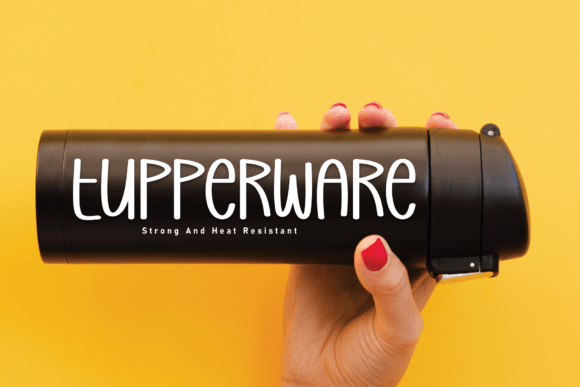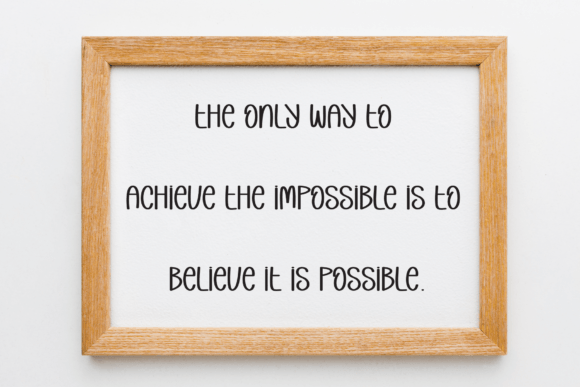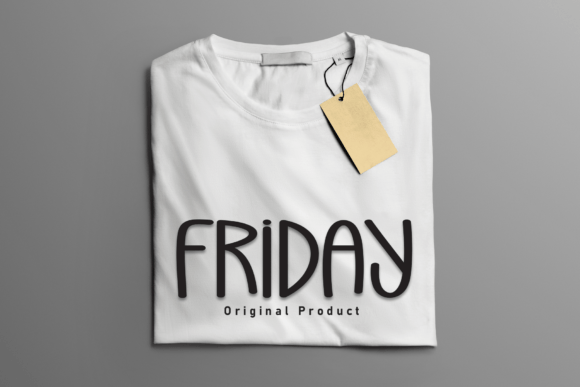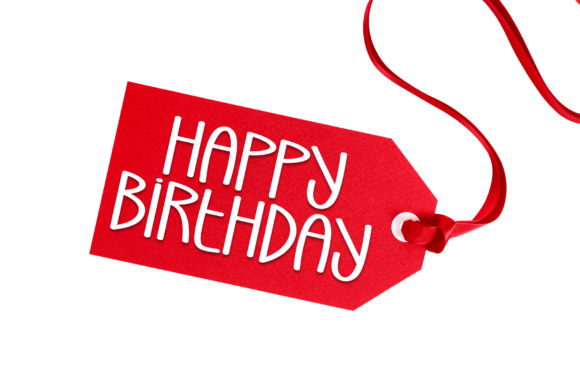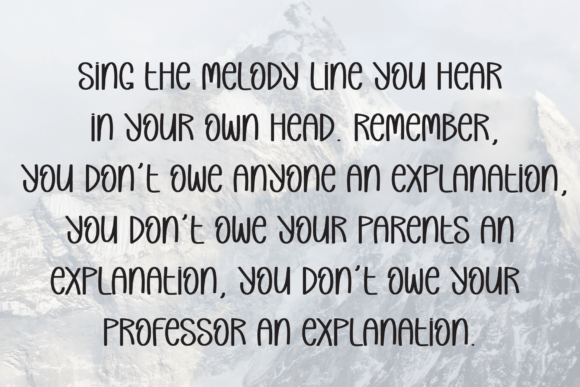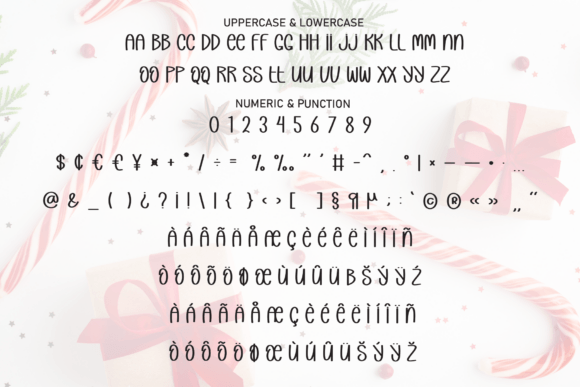
Candy Canes Font: The Sweetest Addition to Your Design Projects
Are you looking for a font that exudes warmth, cheerfulness, and playfulness? Look no further than the Candy Canes Font! This adorable, approachable handwritten display font is perfect for designers and crafters who want to add a dash of delight to their creative projects. In this article, we’ll dive into the world of Candy Canes Font and explore its features, benefits, and uses.
What is Candy Canes Font?
Candy Canes Font is a charming and lively handwritten display font that is designed to bring a lighthearted and endearing touch to your designs. With its engaging and playful style, this font is ideal for crafting wedding invitations, greeting cards, or any design project that calls for a dash of delight. Whether you’re a designer, crafter, or DIY enthusiast, Candy Canes Font is sure to become your new favorite go-to font.
Features of Candy Canes Font
So, what makes Candy Canes Font so special? Here are some of its key features:
- Handwritten style: Candy Canes Font has a beautiful, handwritten style that gives it a personal and approachable feel.
- Charming and lively: This font is designed to be fun and playful, making it perfect for designs that require a dash of whimsy.
- Engaging and playful: Candy Canes Font is sure to capture the attention of your audience with its engaging and playful style.
- Lighthearted and endearing: This font has a lighthearted and endearing quality that makes it perfect for designs that require a touch of warmth and personality.
Benefits of Using Candy Canes Font
So, why should you use Candy Canes Font in your design projects? Here are some of the benefits of using this font:
- Adds a personal touch: Candy Canes Font has a personal and approachable feel that makes it perfect for designs that require a human touch.
- Perfect for festive designs: This font is ideal for festive designs, such as Christmas cards, holiday invitations, and seasonal decorations.
- Great for wedding and event designs: Candy Canes Font is a popular choice for wedding invitations, event invitations, and other celebratory designs.
- Easily readable: This font is easy to read, making it perfect for designs that require a clear and concise message.
Uses of Candy Canes Font
Candy Canes Font is a versatile font that can be used in a variety of design projects, including:
- Wedding invitations: This font is perfect for wedding invitations, save-the-date cards, and other wedding-related designs.
- Greeting cards: Candy Canes Font is great for greeting cards, holiday cards, and other celebratory cards.
- Event invitations: This font is ideal for event invitations, party invitations, and other festive designs.
- Social media graphics: Candy Canes Font can be used to create engaging social media graphics, such as Facebook posts, Instagram posts, and Twitter headers.
Tips for Using Candy Canes Font
Here are some tips for using Candy Canes Font in your design projects:
- Use it for headings: Candy Canes Font is perfect for headings, titles, and subtitles.
- Pair it with other fonts: This font can be paired with other fonts to create a unique and interesting design.
- Experiment with colors: Candy Canes Font looks great in a variety of colors, so don’t be afraid to experiment and find the perfect color scheme for your design.
In conclusion, Candy Canes Font is a charming and lively handwritten display font that is perfect for designers and crafters who want to add a dash of delight to their creative projects. With its engaging and playful style, this font is ideal for crafting wedding invitations, greeting cards, or any design project that calls for a dash of whimsy. So why not give Candy Canes Font a try and see how it can add a touch of warmth and personality to your designs?